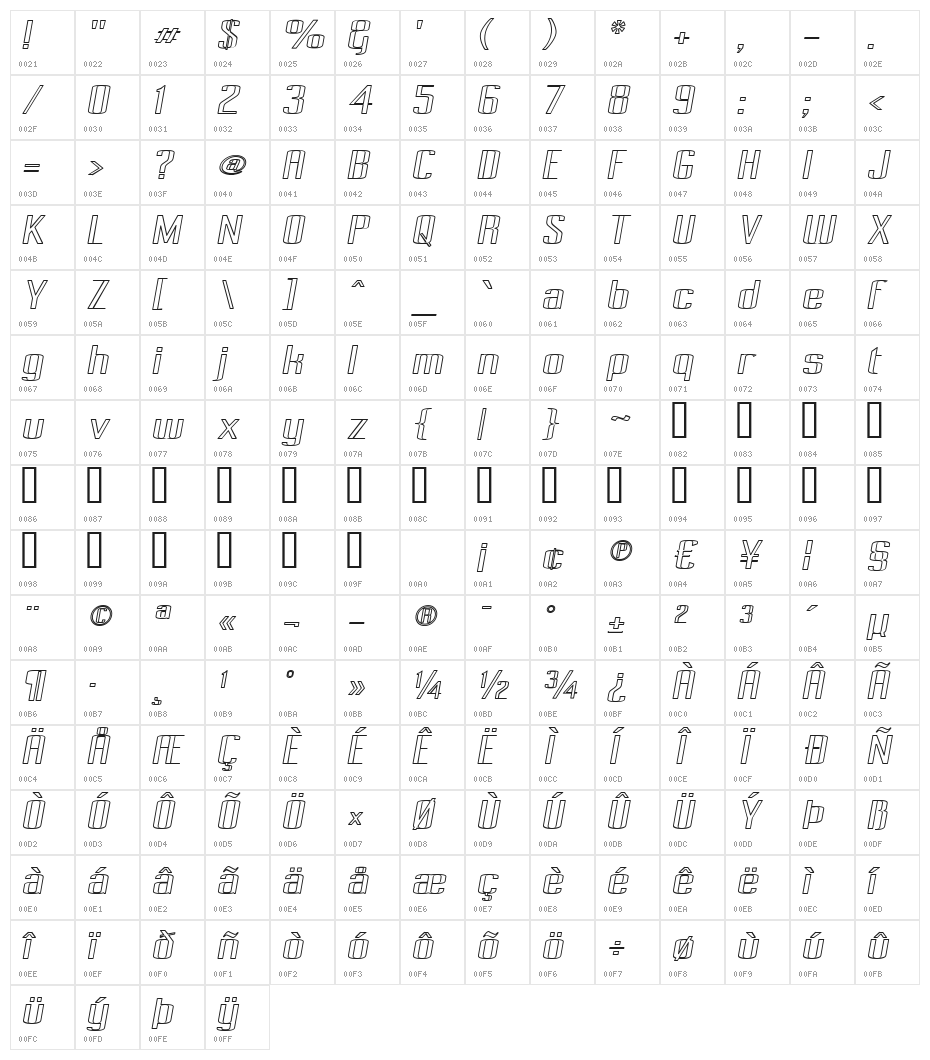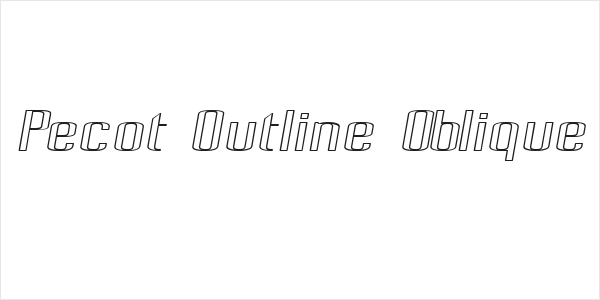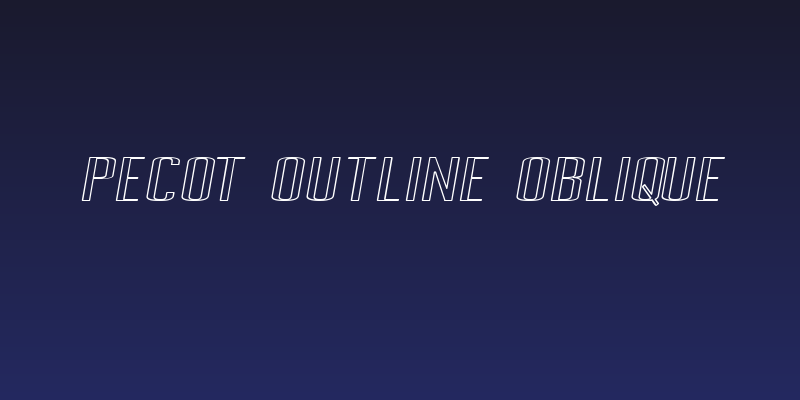
Pecot Outline Oblique Font
Pecot Outline Oblique Description
This font features an outline style with an oblique slant, giving it a dynamic and modern appearance. The uppercase and lowercase letters are consistently designed with a geometric structure, providing a sense of uniformity and balance. The numerals are clear and legible, maintaining the same outlined and slanted style as the alphabet. Special characters are included, matching the overall aesthetic. The font's outline nature makes it suitable for overlaying on images or backgrounds where the text needs to stand out without being too bold.
| Proposed Projects | Ideal for modern branding, posters, digital graphics, and headlines where a contemporary and stylish look is desired. |